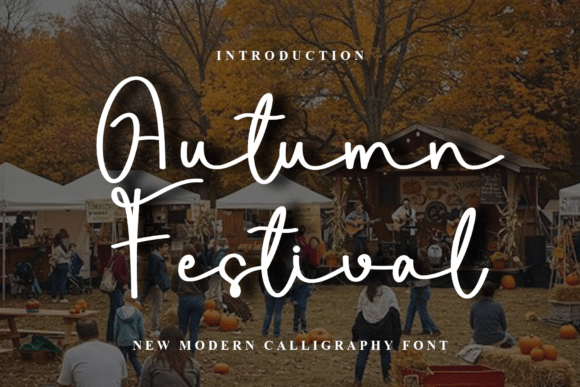
Embracing the Magic of the Season: Introducing Autumn Festival Font
As the leaves change colors and the crisp air sets in, many of us find ourselves drawn to the warmth and coziness of the holiday season. Whether you’re a graphic designer, a crafty enthusiast, or simply someone who loves to get creative, there’s something special about this time of year that inspires us to make something special. For me, it’s the sound of jingling bells, the smell of freshly baked cookies, and the sight of beautifully designed holiday cards – all of which can be achieved with the perfect font.
Enter Autumn Festival Font, a festive and merry typeface that captures the spirit of the season in a way that’s both whimsical and enchanting. With its decorative elements and nostalgic flair, this font is perfect for adding a touch of magic to your designs, whether you’re creating greeting cards, gift tags, or holiday-themed projects.
Autumn Festival Font Key Features
- Unique Characteristics: This font features intricate, hand-drawn designs that evoke the feeling of traditional autumn festivals. Its unique characteristics include a mix of bold and delicate lines, creating a visually appealing effect.
- Font Style: This font is available in regular and bold styles, providing flexibility for designers to create a range of visual effects.
Autumn Festival Font Review
Overall, I was excited to dive into the Autumn Festival Font, but my experience was a mix of good and not-so-good. Let’s break it down.
- The font’s playfulness is a great fit for seasonal or holiday-themed projects, like invitations or social media posts.
- The font’s script-like feel adds a touch of elegance and sophistication to text-based designs.
- The bold weight is robust and eye-catching, making it perfect for headings or titles.
- The font may be too cursive for some projects, which could make it difficult to read in certain contexts.
- The font’s irregularities may not be suitable for projects that require a high level of precision, like resumes or business reports.
- The font’s limited character set may not be sufficient for more complex projects that require a wide range of special characters.
In conclusion, the Autumn Festival Font is a great choice for projects that require a playful, elegant feel. However, its limitations should be carefully considered before choosing it for more formal or precise projects.
For a more authentic look, pair the Autumn Festival Font with warm colors and autumn-inspired graphics.
For a festive look, use the Autumn Festival Font in combination with autumn-themed graphics and colors.
The Autumn Festival Font is perfect for:
- Autumn-themed invitations and announcements.
- Seasonal marketing materials and advertisements.
- Autumn-inspired social media graphics and posts.
With its warm and cozy feel, the Autumn Festival Font is sure to add a touch of autumn magic to your designs.